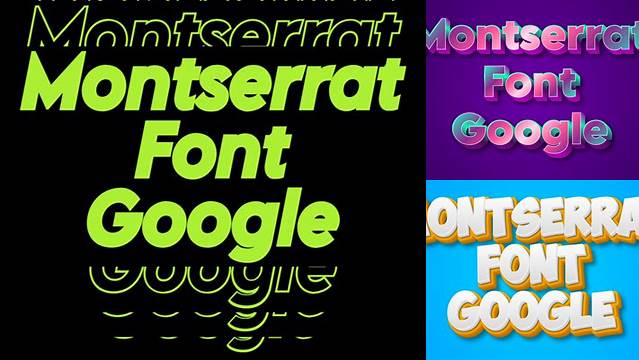
Using Montserrat Font: A Guide To Google Fonts CSS
Let's dive into the world of web typography, focusing on how to use the Montserrat font from Google Fonts. If you're looking to give your website a modern and clean look, Montserrat is a fantastic choice. We'll cover everything from the basics of linking to the font using <link href="https://fonts.googleapis.com/css?family=Montserrat"> to more advanced techniques for customizing its appearance.
What is Montserrat?
Montserrat is a geometric sans-serif typeface designed by Julieta Ulanovsky. Inspired by the urban typography of Buenos Aires, it offers a balanced and readable design, making it a popular choice for headlines and body text alike. Its versatility allows it to fit into various design aesthetics, from corporate websites to creative portfolios. Using Montserrat can instantly elevate the visual appeal of your site, giving it a professional and contemporary feel. Plus, it's free to use, thanks to Google Fonts!
Why Choose Montserrat for Your Website?
Choosing the right font is crucial for your website's readability and overall design. Montserrat strikes a perfect balance between modern aesthetics and readability. Its clean lines and geometric shapes make it easy on the eyes, ensuring visitors can comfortably read your content. This font is versatile enough to be used in headings, body text, and even UI elements, creating a cohesive and professional look throughout your site. Additionally, using a widely supported font like Montserrat ensures consistent rendering across different browsers and devices.
4. Specifying Font Weights and Styles
Montserrat comes in various weights and styles, such as regular, bold, italic, and more. To specify which weights and styles you want to include, you can modify the URL in your <link> tag or @import rule. For example, to include regular (400) and bold (700) weights, you would use: <link href="https://fonts.googleapis.com/css?family=Montserrat:400,700" rel="stylesheet">. Including only the weights you need helps to reduce the file size and improve loading times.
5. Using Montserrat in Your CSS
Once you've linked Montserrat to your HTML or imported it into your CSS, you can start using it in your CSS rules. The font-family property is your go-to for this. Simply set the font-family to 'Montserrat', followed by a generic fallback like sans-serif. For example: body { font-family: 'Montserrat', sans-serif; }. This ensures that if Montserrat isn't available for some reason, the browser will use a default sans-serif font instead.
6. Combining Montserrat with Other Fonts
While Montserrat is versatile, combining it with other fonts can create a more dynamic and visually appealing design. A common practice is to use Montserrat for headings and another font for body text. Popular pairings include serif fonts like Merriweather or Roboto Slab for body text, which can provide a nice contrast and improve readability. Experiment with different combinations to find what works best for your project's aesthetic.
7. Optimizing Montserrat for Web Performance
To ensure your website loads quickly, it's essential to optimize your use of Montserrat. One key optimization is to only include the font weights and styles you actually need. Another tip is to use font-display: swap; in your CSS to ensure text remains visible during font loading. This can prevent the dreaded "flash of invisible text" and improve the user experience. Additionally, consider using a Content Delivery Network (CDN) to serve your fonts, which can further improve loading times.
8. Troubleshooting Common Issues
Sometimes, you might encounter issues when using Montserrat. A common problem is the font not displaying correctly, which can often be resolved by clearing your browser cache or ensuring the <link> tag is correctly placed in the <head> section of your HTML. Another issue might be incorrect font weights or styles being applied, which can be fixed by double-checking your CSS rules and the font weights specified in your <link> tag.
9. Responsive Typography with Montserrat
In today's mobile-first world, responsive typography is crucial. Using Montserrat in conjunction with CSS media queries allows you to adjust the font size, line height, and letter spacing based on the screen size. This ensures your text remains readable and visually appealing on all devices. For example, you might increase the font size for headings on smaller screens to improve readability on mobile devices.
10. Accessibility Considerations
When using Montserrat, it's important to consider accessibility. Ensure the font size is large enough for users with visual impairments and that there is sufficient contrast between the text and background colors. Using tools like the WebAIM Contrast Checker can help you verify that your color choices meet accessibility standards. Additionally, provide alternative text for any images that contain text rendered in Montserrat.
11. Advanced CSS Techniques for Montserrat
For more advanced customization, you can use CSS properties like text-shadow, letter-spacing, and word-spacing to fine-tune the appearance of Montserrat. These properties can add subtle effects or improve readability in specific contexts. Experiment with different values to achieve the desired look and feel for your text. Just remember to use these effects sparingly to avoid making your text difficult to read.
12. Local Font Alternatives
While Google Fonts is reliable, there might be situations where you want to use a local font alternative for Montserrat. This involves downloading the font files and hosting them on your own server. You can then use the @font-face rule in CSS to define the font and its properties. This method gives you more control over the font files and can potentially improve performance in certain scenarios. However, it also requires more manual management.
13. Using Montserrat in Design Software
Montserrat isn't just for websites; it's also available for use in design software like Adobe Photoshop, Illustrator, and Sketch. To use it, simply download the font files from Google Fonts and install them on your computer. Once installed, Montserrat will be available as a font option in your design software, allowing you to create visually consistent designs across different mediums.
14. Licensing and Usage Rights
Montserrat is licensed under the SIL Open Font License (OFL), which means it's free to use for personal and commercial projects. You can freely use, modify, and distribute the font, making it a great choice for any project without worrying about licensing restrictions. However, it's always a good idea to review the license to ensure you're complying with the terms.
15. Montserrat and SEO
Using Montserrat can indirectly impact your website's SEO. By improving the overall design and readability of your site, you can increase user engagement and reduce bounce rates. These factors can signal to search engines that your website provides a positive user experience, potentially boosting your search rankings. Additionally, using a fast-loading font like Montserrat can improve your site's performance, which is also a ranking factor.
16. Font Pairing Tools
If you're struggling to find the perfect font pairing for Montserrat, consider using font pairing tools like FontPair or Type Genius. These tools can suggest complementary fonts based on your chosen font, helping you create a harmonious and visually appealing design. Experiment with different suggestions to find a combination that aligns with your project's goals.
17. Case Studies: Websites Using Montserrat
Many websites across various industries use Montserrat to create a modern and professional look. From tech startups to creative agencies, Montserrat's versatility makes it a popular choice. Analyzing these websites can provide inspiration and insights into how to effectively use Montserrat in your own projects. Pay attention to how they combine Montserrat with other fonts and how they use it in different contexts.
18. Montserrat vs. Other Popular Fonts
While Montserrat is a great choice, it's worth comparing it to other popular fonts like Roboto, Open Sans, and Lato. Each font has its own unique characteristics and strengths. Roboto, for example, is known for its mechanical design and readability on Android devices. Open Sans is a highly versatile font that works well in various contexts. Lato is a humanist sans-serif with a warm and friendly feel. Consider your project's specific needs and aesthetic when choosing between these fonts.
19. Common Mistakes to Avoid
When using Montserrat, avoid common mistakes like using too many font weights or styles, which can slow down your website. Also, avoid using excessive text shadows or other effects that can make your text difficult to read. Ensure your font size is large enough for readability and that there is sufficient contrast between the text and background colors. By avoiding these mistakes, you can ensure a positive user experience.
20. The Future of Web Typography
The field of web typography is constantly evolving, with new technologies and techniques emerging all the time. Variable fonts, for example, offer more flexibility and control over font weights and styles. Font loading strategies are becoming more sophisticated, with techniques like font-display: optional; allowing for more seamless font loading. Staying up-to-date with these trends can help you create more engaging and performant websites.
21. Montserrat in Print Design
While Montserrat is primarily used for web design, it can also be used in print design projects. Its clean lines and geometric shapes make it suitable for brochures, posters, and other printed materials. Just ensure you have the correct font files and that the font is properly embedded in your design software.
22. Creating a Font Style Guide
To maintain consistency in your design, it's helpful to create a font style guide that outlines how Montserrat should be used in different contexts. This guide should specify the font weights, sizes, and colors to be used for headings, body text, and other elements. Sharing this guide with your team can ensure everyone is on the same page and that your design remains consistent.
23. Using CSS Preprocessors
If you're using a CSS preprocessor like Sass or Less, you can create variables for your font-family, font-weight, and font-size values. This makes it easier to update your typography across your entire website. For example, you can define a variable for the Montserrat font-family and then use that variable in your CSS rules. This can save you time and effort when making changes to your typography.
24. Font Display Property
The font-display property in CSS allows you to control how the browser handles font loading. The swap value, as mentioned earlier, ensures text remains visible during font loading. Other values include auto, block, fallback, and optional. Experiment with these values to find the best strategy for your website's performance and user experience.
25. Dynamic Font Loading
For more advanced control over font loading, you can use JavaScript to dynamically load fonts based on user interactions or device capabilities. This allows you to optimize font loading for specific scenarios and improve your website's performance. However, this approach requires more technical expertise and careful implementation.
26. CDN Providers for Google Fonts
While Google Fonts provides a reliable CDN for serving fonts, you can also use other CDN providers like Cloudflare or jsDelivr. These CDNs offer additional features like caching and performance optimization. However, using a third-party CDN might require more configuration and technical knowledge.
27. Font Subsetting
Font subsetting involves removing unused characters from a font file to reduce its size. This can significantly improve loading times, especially for websites with limited bandwidth. Tools like Font Squirrel's Webfont Generator can help you subset your fonts. However, ensure you include all the characters you need for your website's content.
28. Testing Your Font Choices
Before launching your website, it's important to test your font choices on different browsers and devices. This ensures that Montserrat is rendering correctly and that your typography is readable across different platforms. Use browser developer tools to inspect the font styles and identify any issues.
29. Monitoring Font Performance
After launching your website, continue to monitor your font performance using tools like Google PageSpeed Insights or WebPageTest. These tools can provide insights into font loading times and identify areas for improvement. Regularly monitoring your font performance can help you maintain a fast and performant website.
30. Staying Inspired with Typography
Finally, stay inspired by exploring different typography trends and techniques. Follow typography blogs, attend design conferences, and experiment with different font combinations. The world of typography is vast and exciting, and there's always something new to learn. By staying inspired, you can create visually stunning and engaging designs that captivate your audience using fonts like Montserrat.